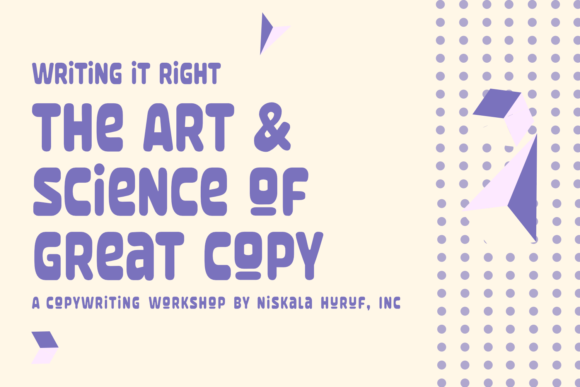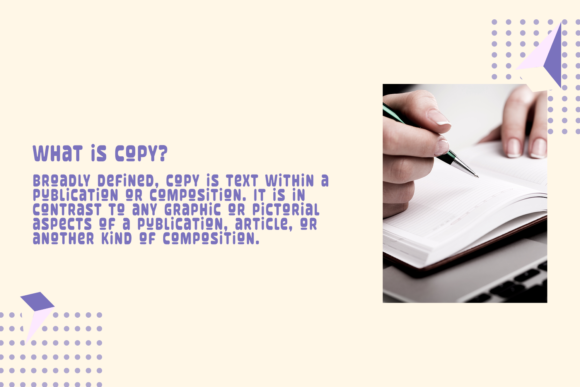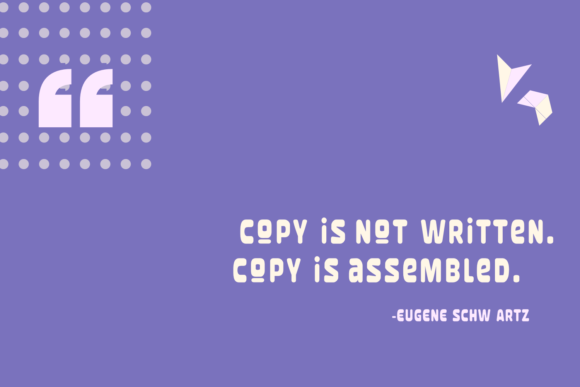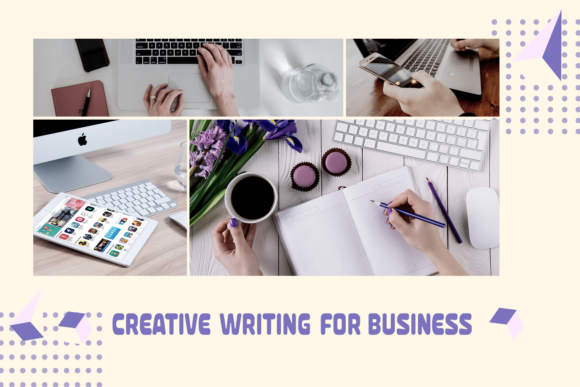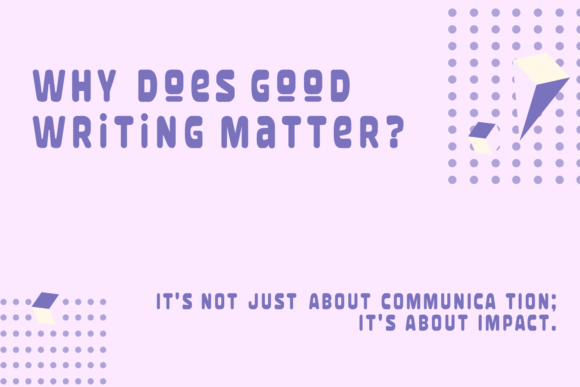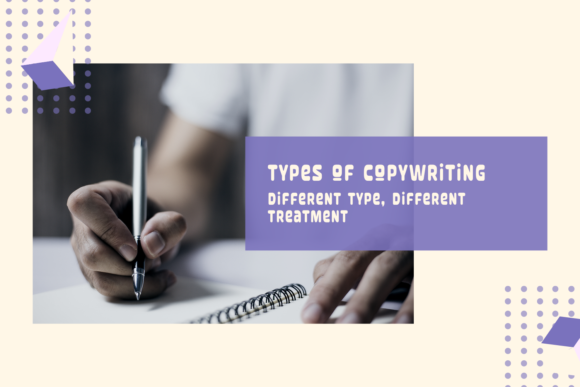
Unlock the Retro Charm of Your Designs
Have you ever found yourself stuck in a creative rut, pouring over designs that just don’t quite feel like you? We’ve all been there – desperately searching for that one elusive element to bring our vision to life. That’s where the Broadly Similar Font comes in, a cool and retro styled display font that’s sure to add a touch of nostalgia and whimsy to your work.
Perfect for adding a dash of personality to your designs, the Broadly Similar Font is a versatile addition to any library. With its playful and simple style, it’s the perfect solution for designers looking to inject some retro charm into their work. Whether you’re working on a branding project, creating a marketing campaign, or simply looking to add some visual interest to a blog post, the Broadly Similar Font is a valuable tool in your creative arsenal.
Broadly Similar Font Key Features
- Font Family: Broadly Similar Font is a sans-serif font family designed for body text and display use.
- Font Sizes: Supports font sizes from 8pt to 72pt, making it suitable for various applications, from small text to large display headings.
- Resolution: Optimized for high-resolution displays, with clear and crisp rendering at resolutions up to 300 DPI.
- Unique Characteristics: Broadly Similar Font features a clean and modern design, with subtle rounded edges and a balanced x-height, making it highly legible and readable.
- Language Support: Supports a wide range of languages, including Latin, Cyrillic, Greek, and many others, making it a versatile font for global applications.
Broadly Similar Font Review
Overall, I think the Broadly Similar Font has some great qualities that make it a solid choice for certain projects, but it also has some limitations that might make it less ideal for others. Let’s break it down.
- Legibility: The font is clear and easy to read, even at smaller sizes.
- Versatility: It works well for both body text and headings, making it a great all-purpose font.
- Neutral style: The font’s neutral style makes it a good choice for a wide range of projects, from tech to creative industries.
- Lack of personality: The font is a bit too generic and doesn’t stand out from other similar fonts.
- No bold/italic variations: While it works well for body text, it’s a bit limiting for headings and titles.
- Not ideal for complex text: Due to its simplicity, the font can struggle with complex or dense text.
Overall, I think the Broadly Similar Font is a solid choice for projects where you want a clean, easy-to-read font without too much flair. However, if you’re looking for a font that really stands out or has a lot of personality, you might want to consider something else.
Use the ‘Broadly Similar Font’ to create a cohesive brand identity across all your projects.
Experiment with different font sizes, colors, and styles to find the perfect balance.
Combine the font with other design elements, such as images and graphics, to create visually appealing content.
Use the ‘Broadly Similar Font’ for:
– Website and blog content
– Presentations and reports
– Print materials, such as brochures and business cards